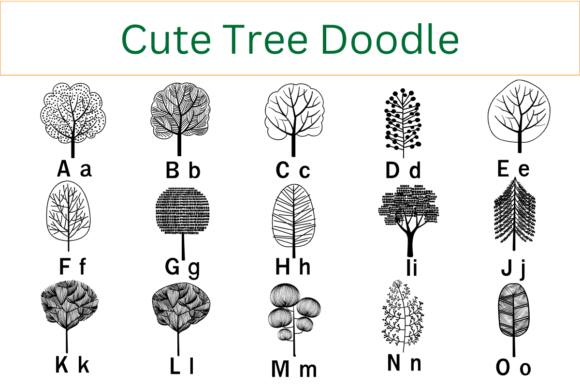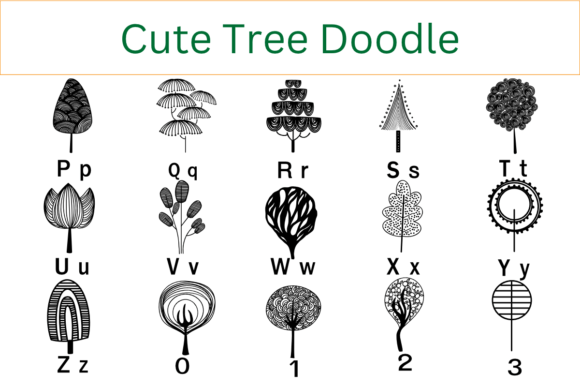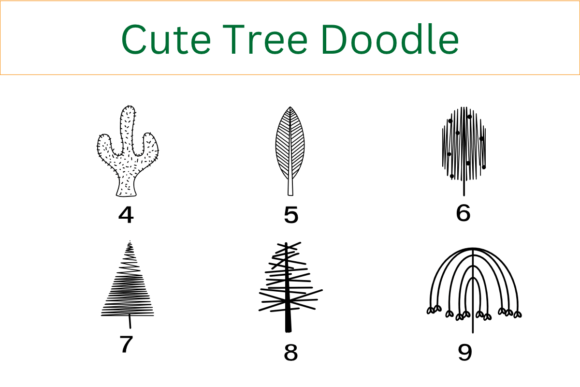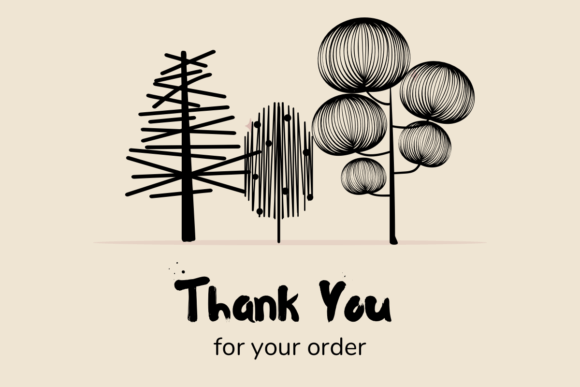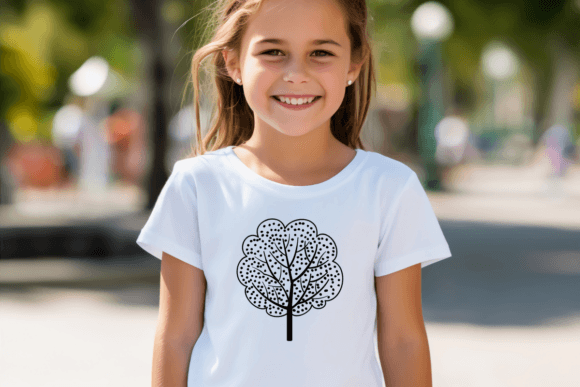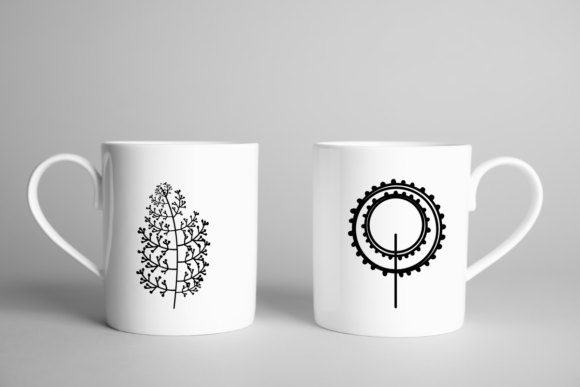
The Cute Tree Font: A Whimsical Addition to Your Design Arsenal
I’ll never forget the time I was working on a wedding invitation project, and my client asked for a font that was “whimsical” and “tree-like.” I scoured the internet, but nothing seemed quite right. That was until I stumbled upon the Cute Tree font. This dingbats font with a sketch style has been a game-changer for my creative projects, and I’m excited to share it with you.
An Honest Review of Cute Tree
- ✨ The Cute Tree font is perfect for adding a touch of whimsy to any design project.
- ✅ Its sketch style gives it a unique, hand-drawn feel that’s hard to find in other fonts.
- 🎨 The font comes with a wide range of glyphs and stylistic alternates, making it incredibly versatile.
- 💕 It’s perfect for projects that require a playful, yet elegant touch.
While the Cute Tree font is amazing, there are a few things to keep in mind:
- 🤔 Some of the glyphs can be a bit finicky to use, especially if you’re not familiar with OpenType features.
- ⚠️ The font may not be suitable for body text, as it’s more designed for headings and decorative elements.
The Designer Inspiration Behind Cute Tree
The Cute Tree font was inspired by the whimsical illustrations of nature and the great outdoors. The designer wanted to create a font that captured the essence of a tree, with all its quirks and charm. The result is a font that’s perfect for adding a touch of personality to any design project.
| Font Name | Cute Tree Font |
| Author | Nun Sukhwan |
Q: What is the Cute Tree font?
A: The Cute Tree font is a dingbats font with a sketch style, perfect for adding a touch of whimsy to your design projects.
Q: What can I use the Cute Tree font for?
A: You can use the Cute Tree font for a wide range of creative projects, including wedding invitations, DIY crafts, decorations, logos, and more.
Q: Is the Cute Tree font easy to use?
A: Yes, the Cute Tree font is relatively easy to use, especially if you’re familiar with OpenType features and glyphs.